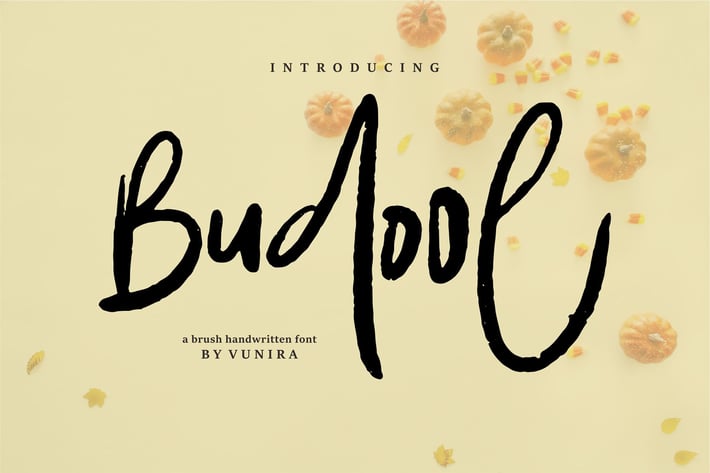
Budool | A Brush Handwritten Font
Budool | A Brush Handwritten Font with a calligraphy style, So beautiful on invitation like greeting cards, branding materials, business cards, quotes, posters, and more!